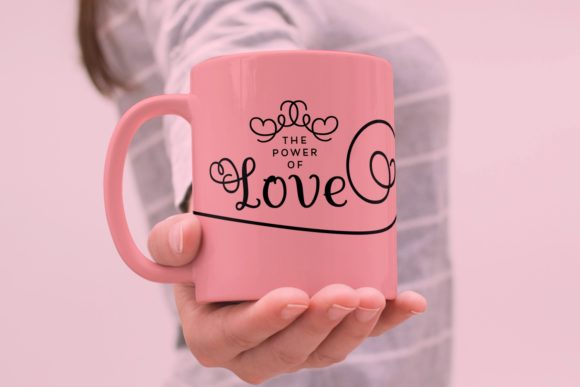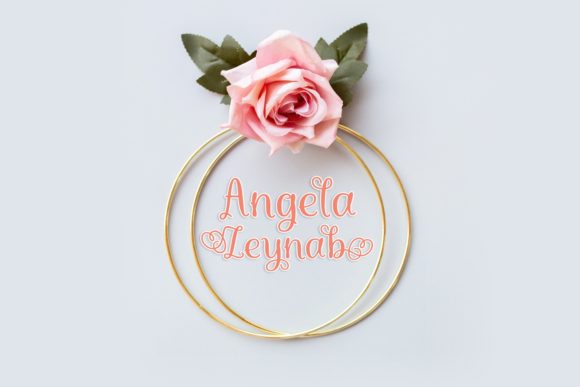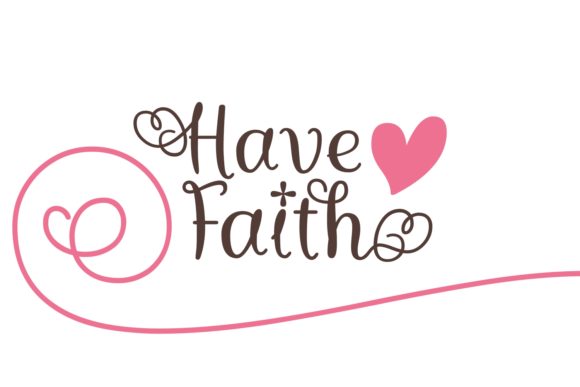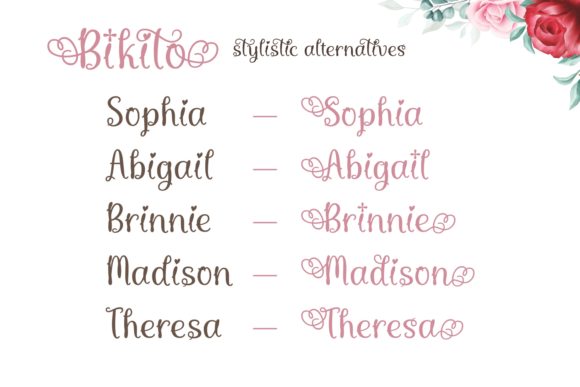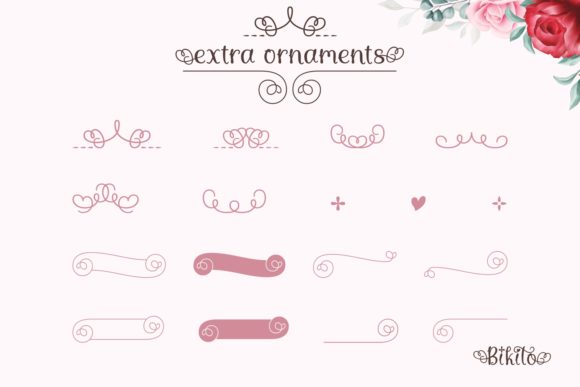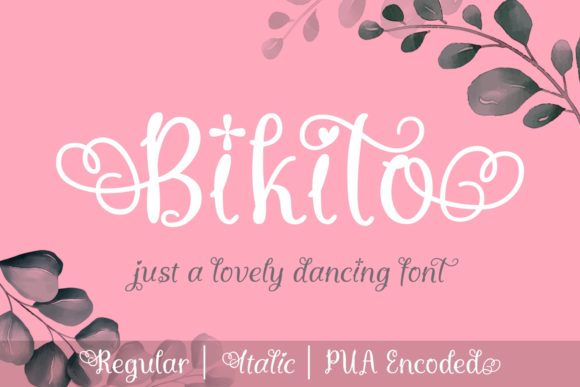
The Sweet Charm of Bikito Font: A Designer’s Delight
I’ll never forget the time I was working on a wedding invitation project, and my client asked for a font that was “soft, playful, and elegant.” I scoured the internet, trying out font after font, but nothing seemed to fit the bill. That was until I stumbled upon Bikito Font. ✨ This sweet, hand-lettered script has been a game-changer for my design projects, and I’m excited to share its charm with you.
An Honest Review of Bikito Font
• ✨ The playful, rounded characters that give it a soft and approachable feel
• ✅ The inclusion of decorative swashes that add a calligraphic touch to any design
• 🎉 The versatility of having two unique font styles: Regular and Italic
• 💕 The authentic, hand-crafted feel that makes it perfect for craft designs and DIY projects
While Bikito Font is an amazing addition to any design project, there are a few things to keep in mind: 🤔
• ⚠️ The font may not be suitable for very formal or corporate designs, as it has a distinctly playful and creative feel
• ⚠️ Some users may find the swashes a bit finicky to work with, especially if they’re new to OpenType features
The Backstory of Bikito Font
Bikito Font was designed with the creative hobbyist in mind. The designer wanted to create a font that was both elegant and playful, with a distinctly hand-crafted feel. The result is a font that’s perfect for craft designs, DIY projects, and creative endeavors of all kinds.
Q: What is the best way to use Bikito Font for wedding invitations?
A: Bikito Font is perfect for wedding invitations, especially when paired with decorative swashes and elegant graphics. Try using it as a main font or as a accent font to add a touch of whimsy.
Q: How do I access the swashes in Bikito Font?
A: The swashes can be accessed through the OpenType features in compatible design software, such as Canva, Adobe Photoshop, or Illustrator.
Q: Is Bikito Font suitable for digital use?
A: Yes, Bikito Font is suitable for digital use, including social media posts, blog headers, and more. Its clear and legible design makes it perfect for a variety of digital applications.